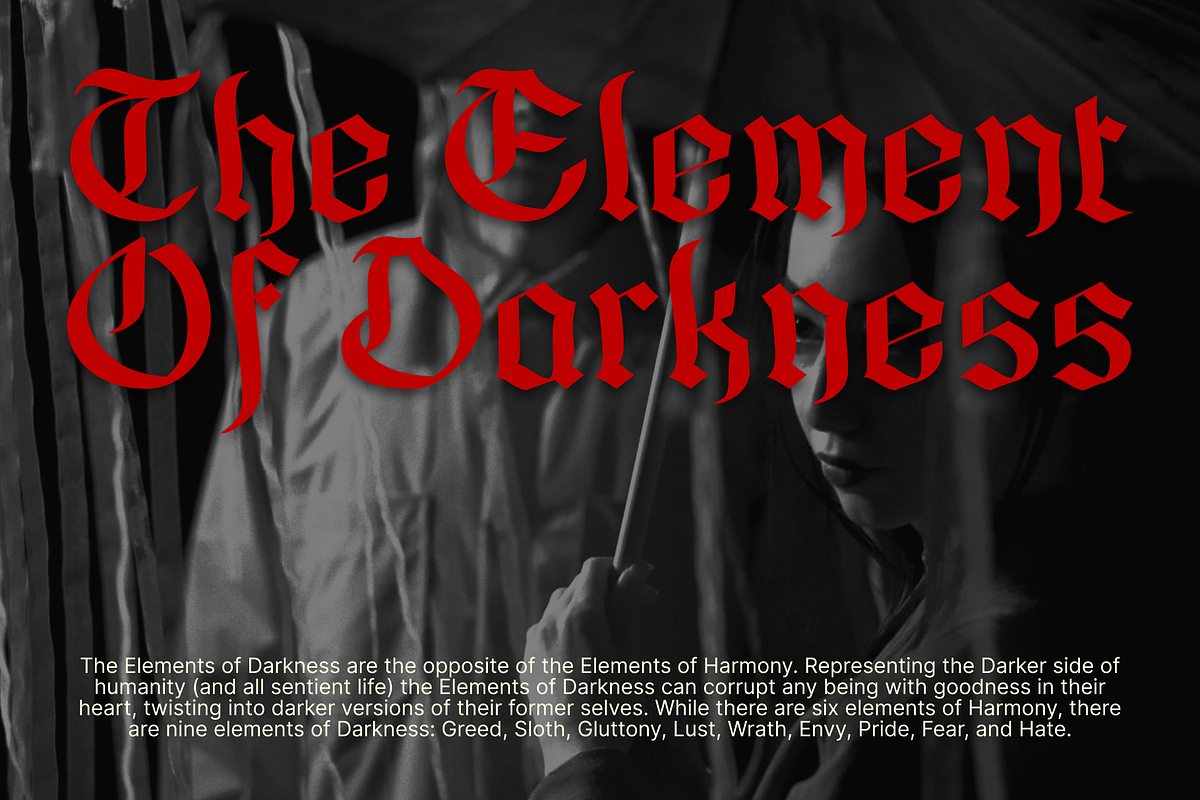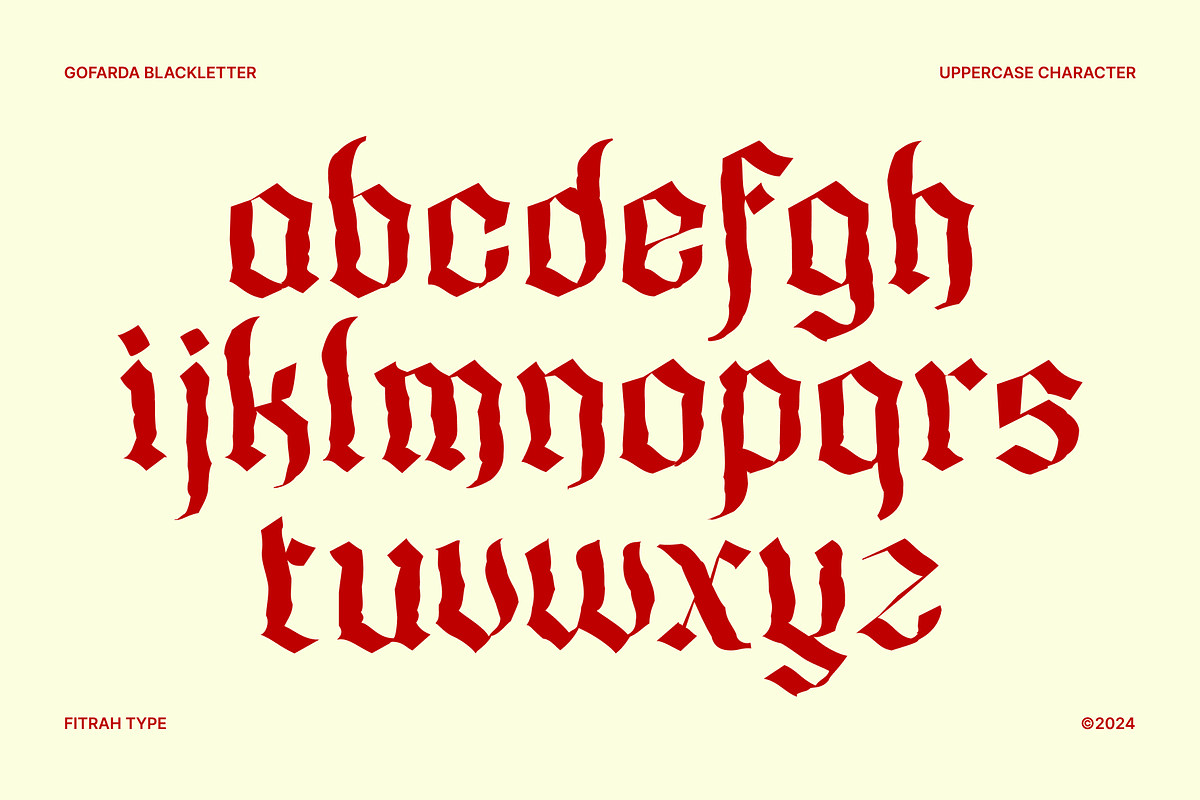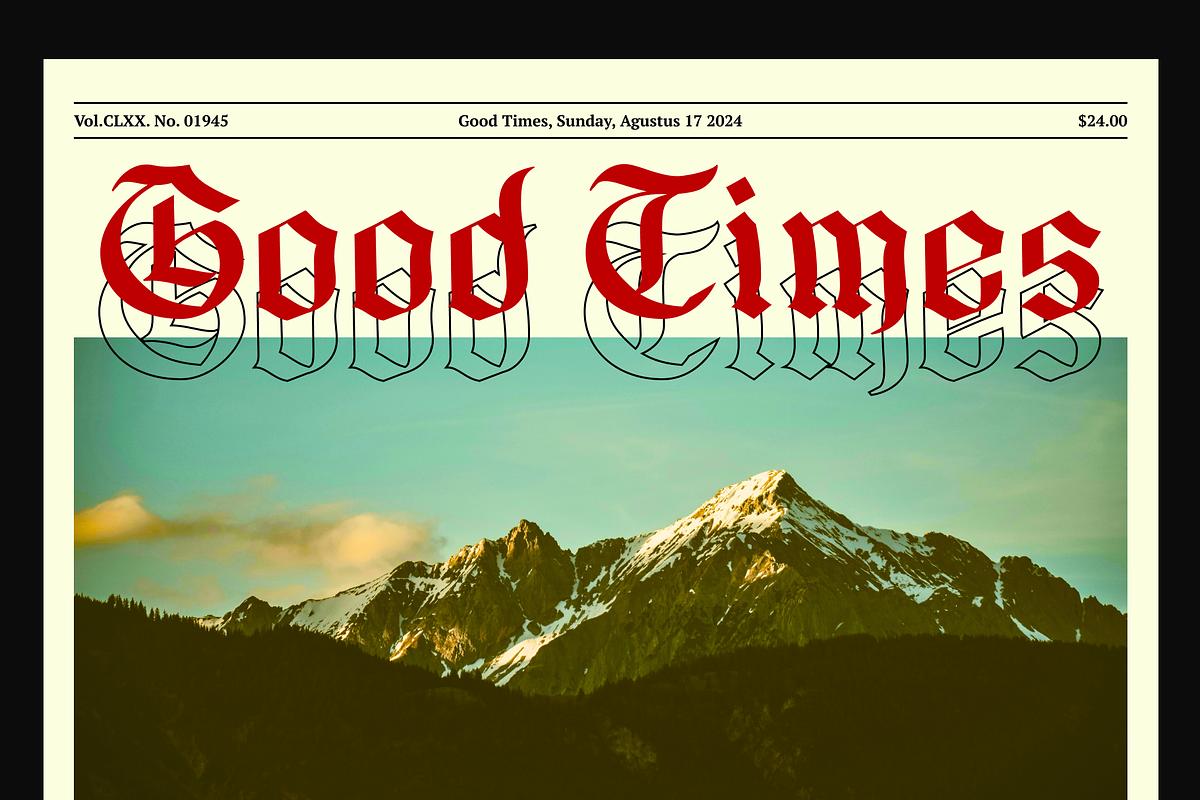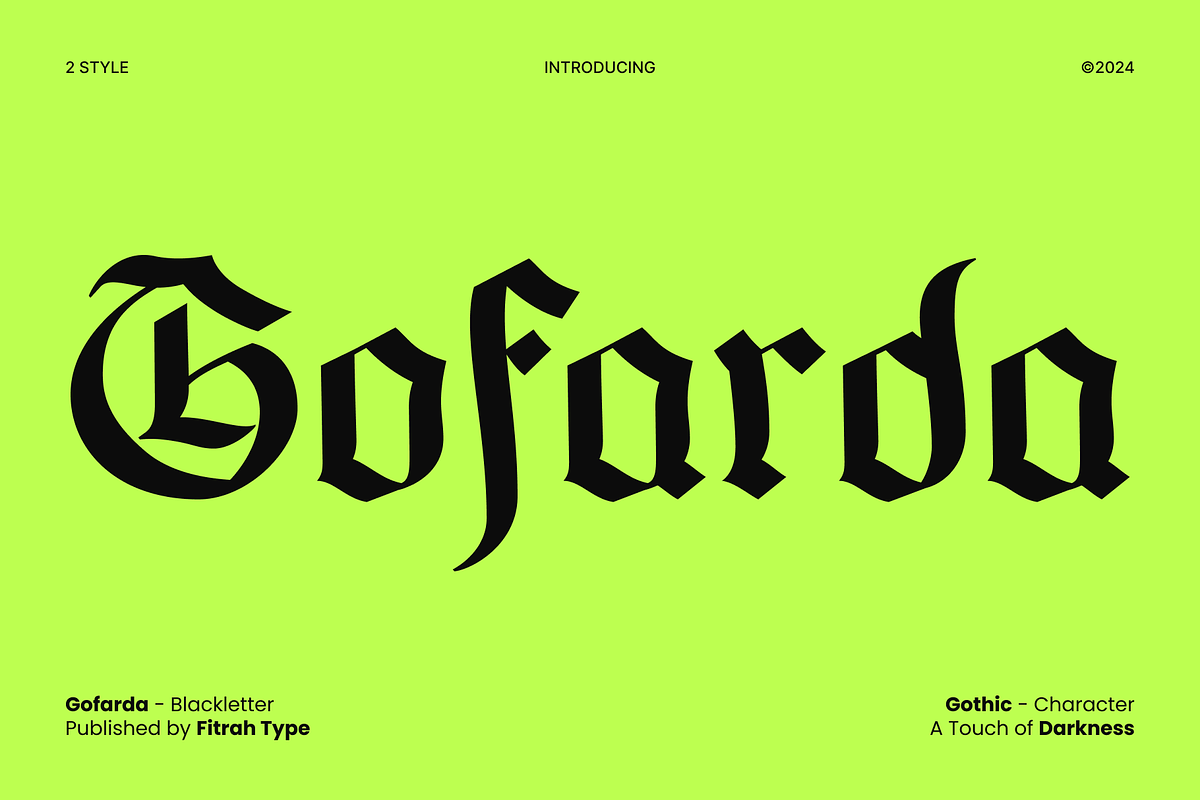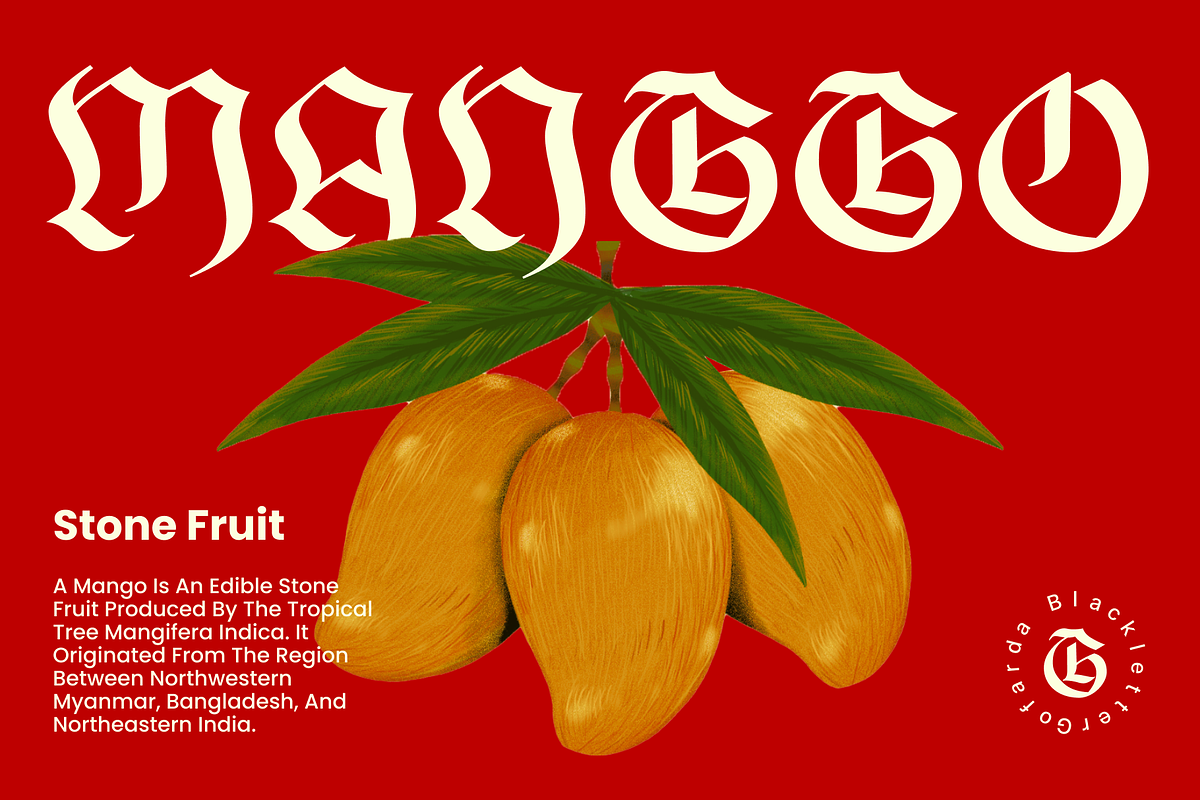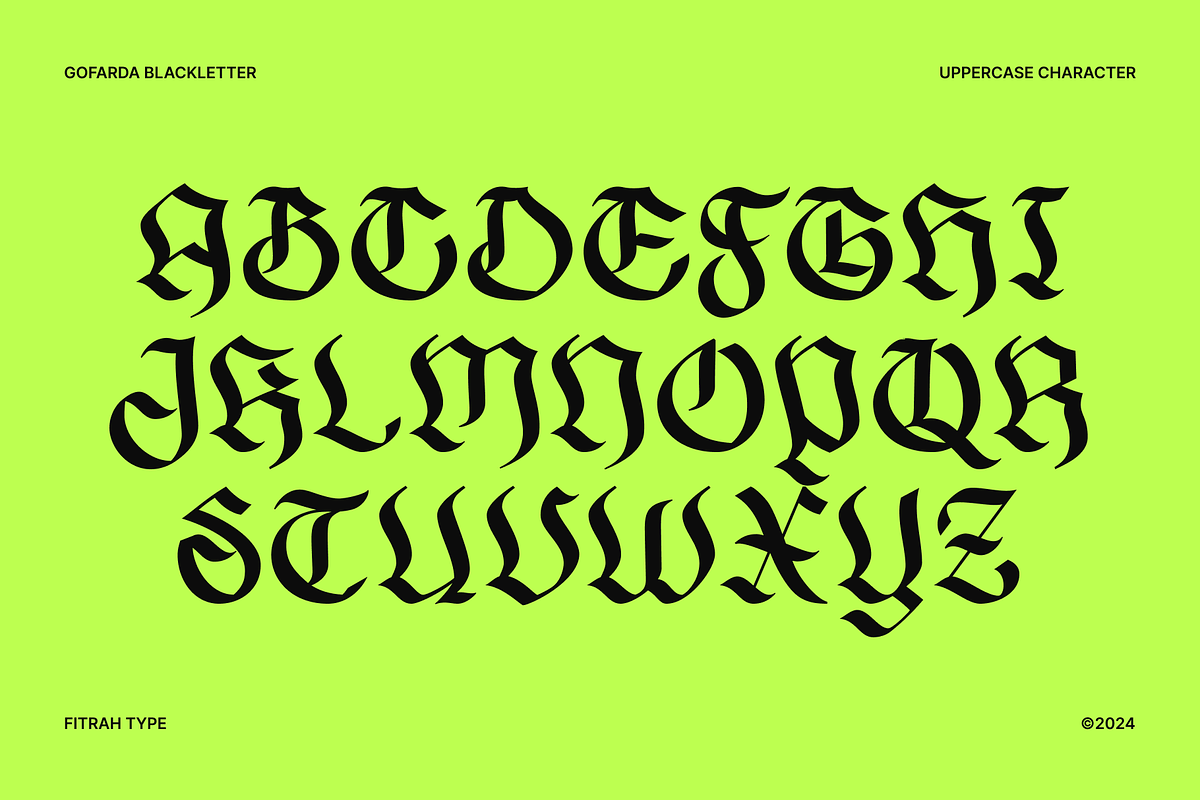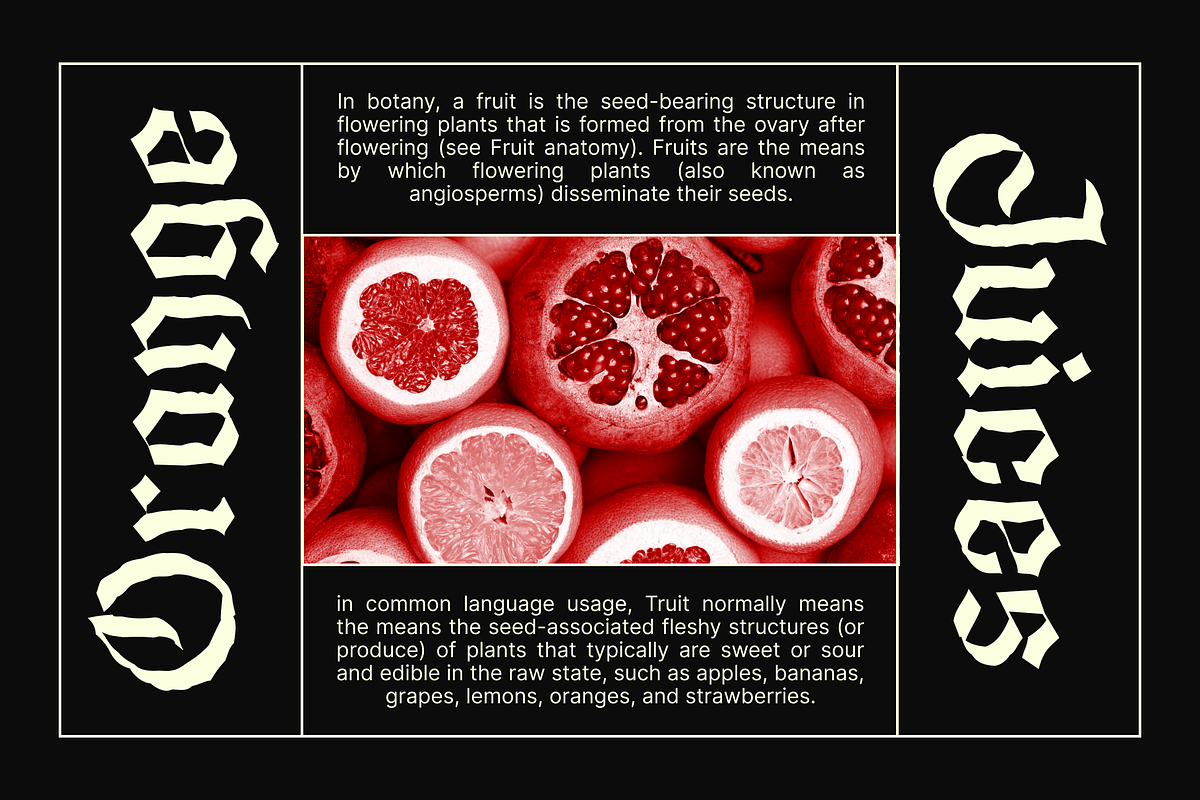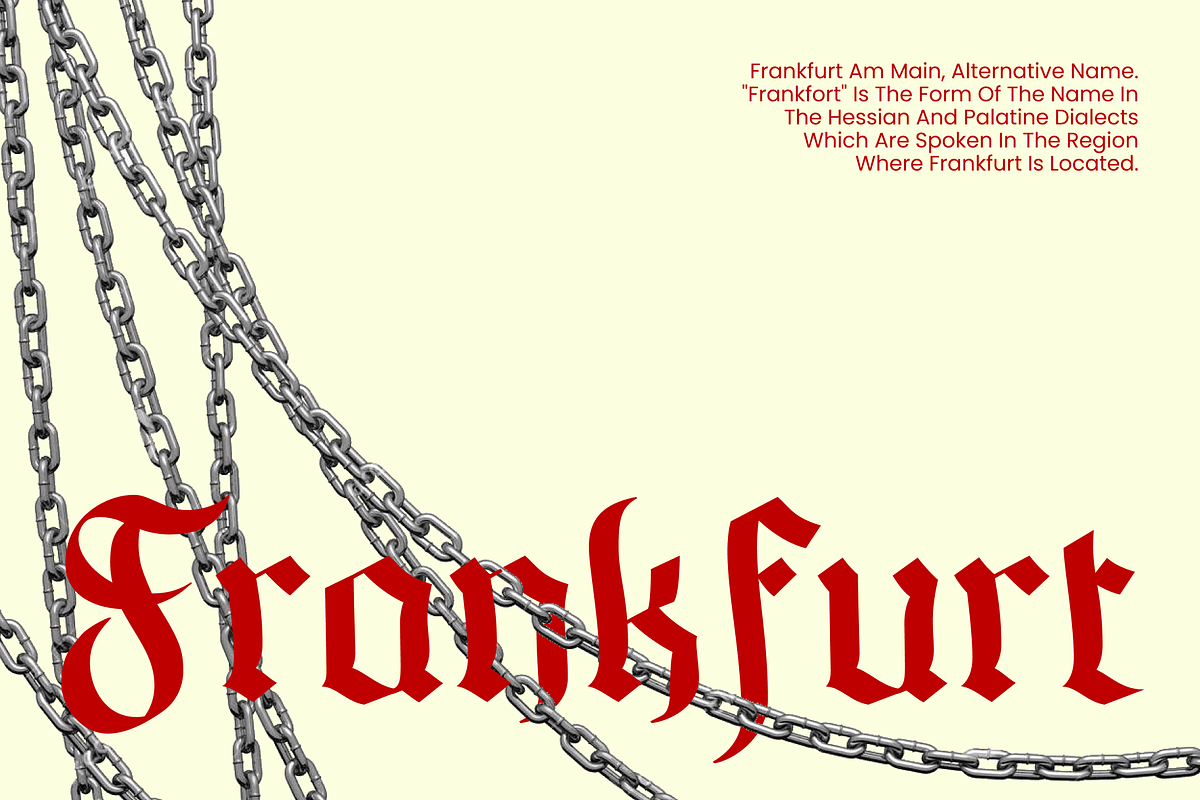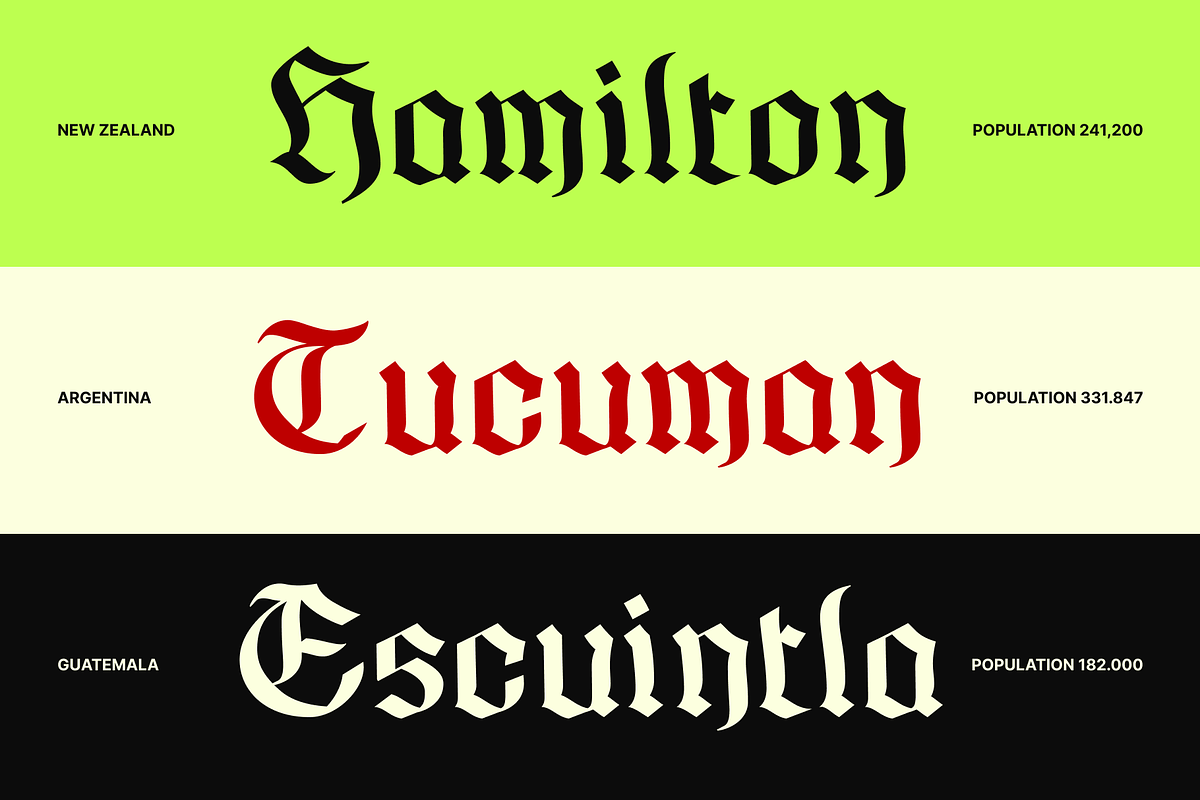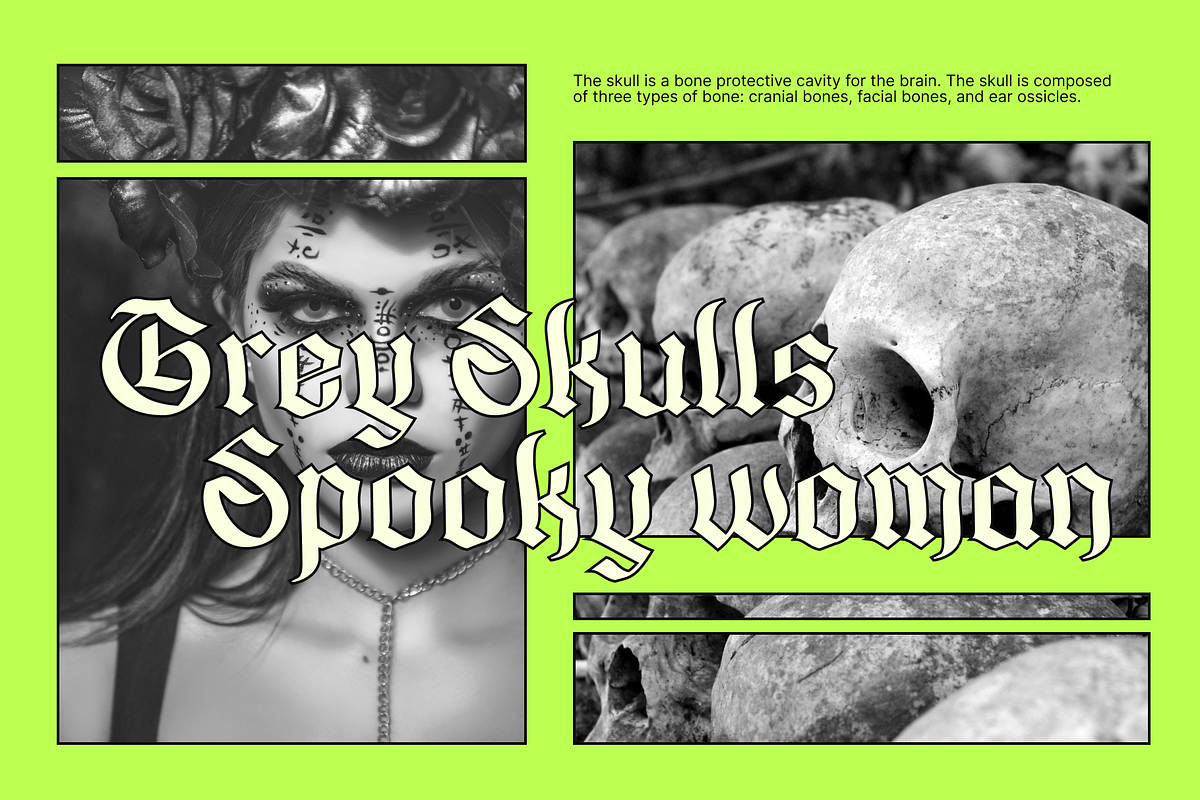
Gofarda Gothic Blackletter
Gofarda Gothic is the newest typeface with a simple Blackletter style. There are two styles of font Regular and Distort styles. The entire typography has been designed to work on large sizes. This font is good to use on posters, zines, stickers, and t-shirts.